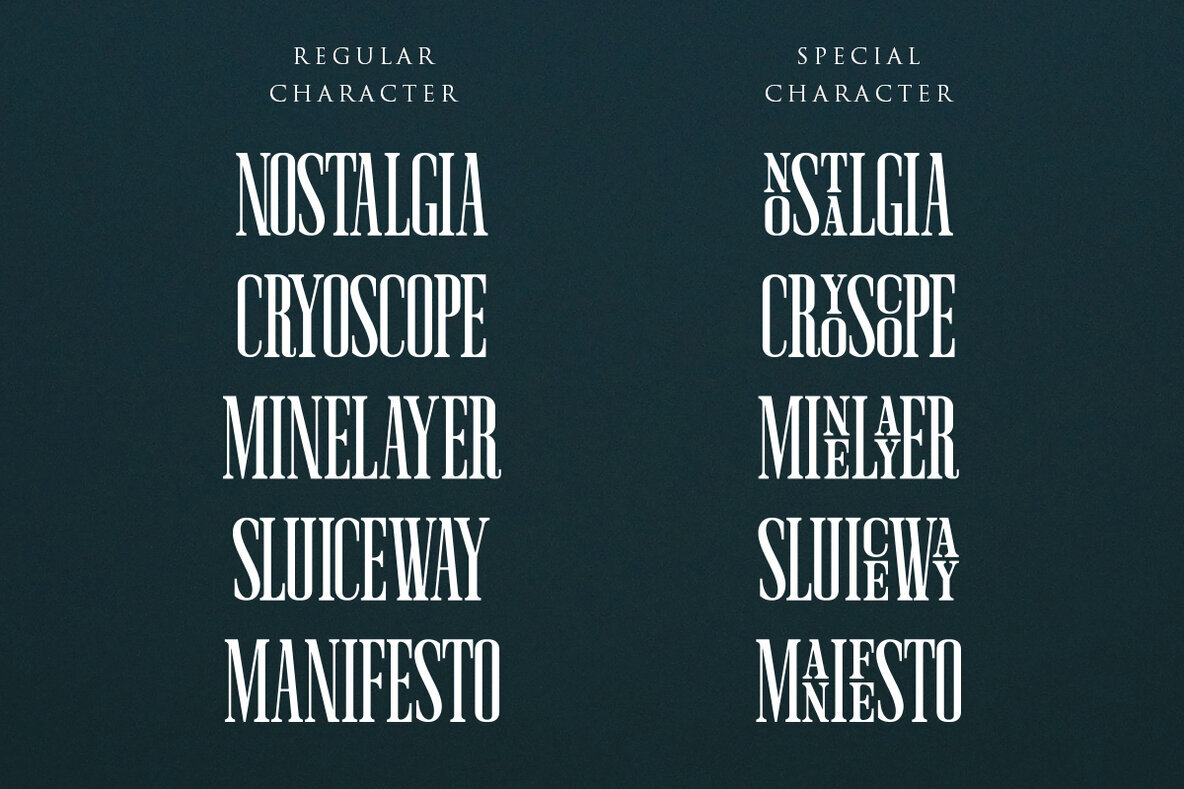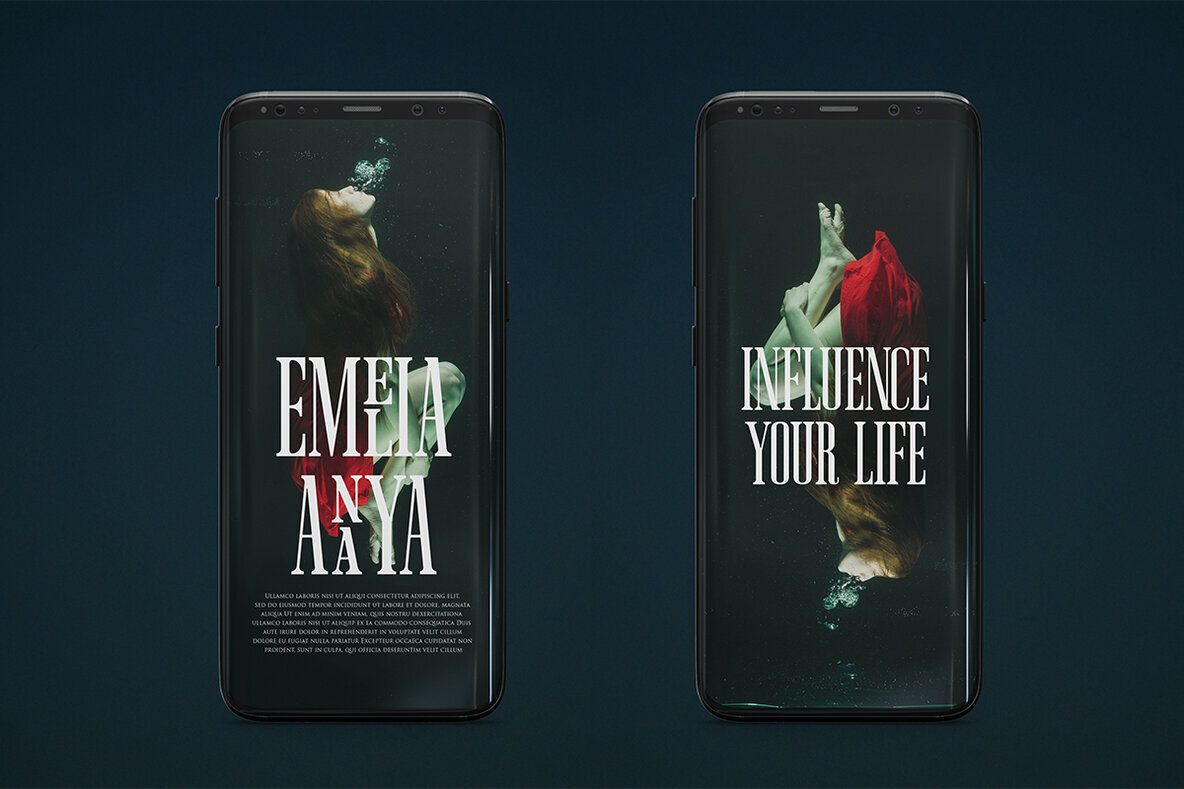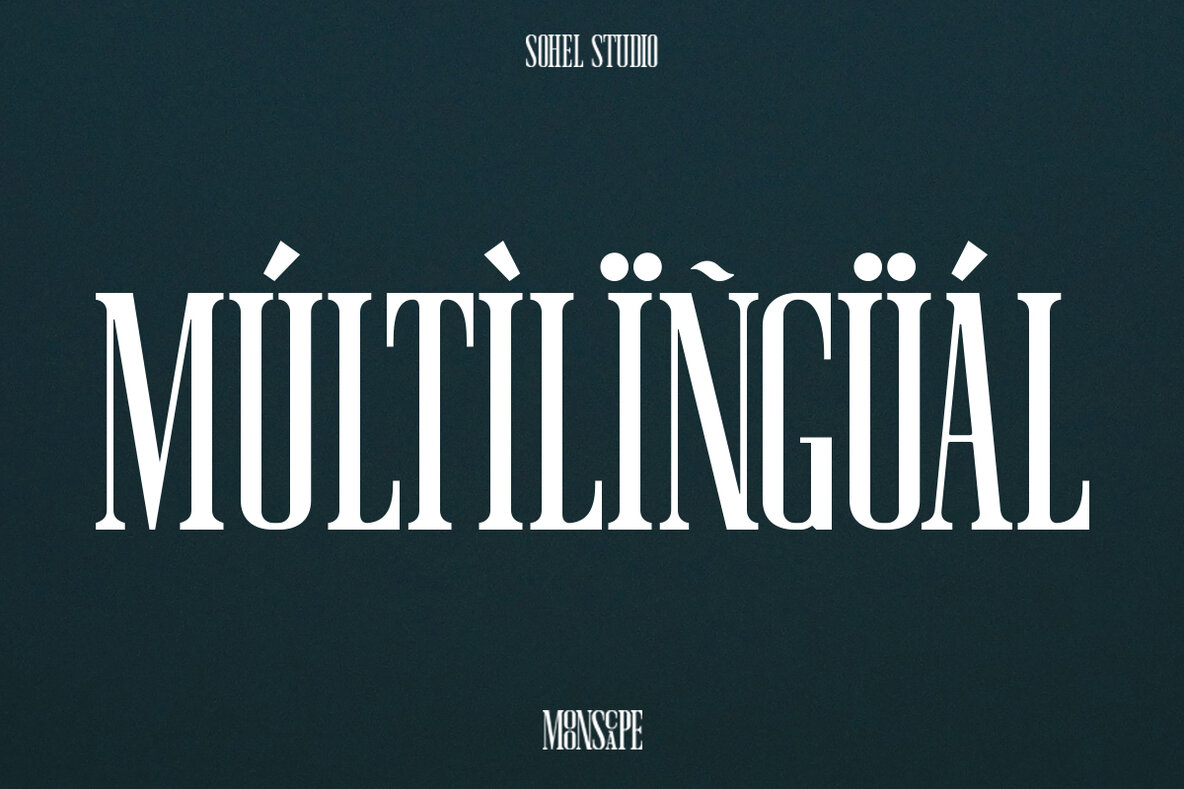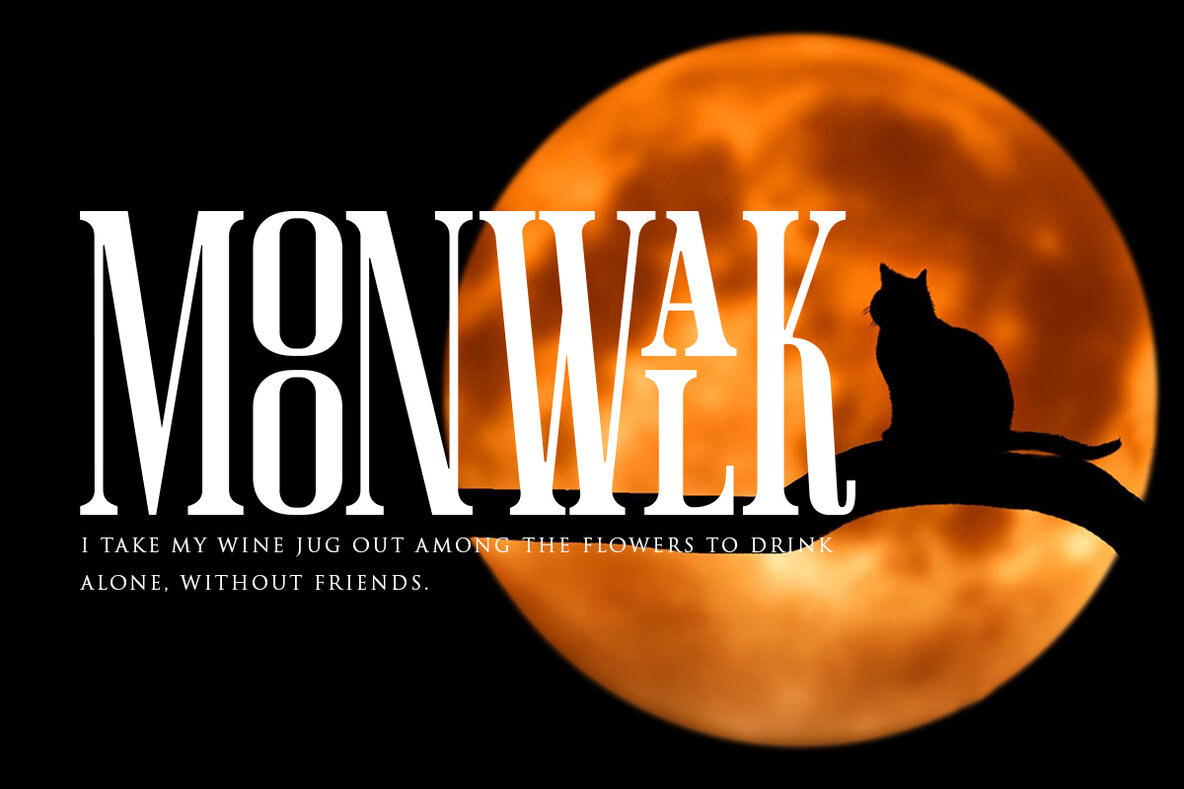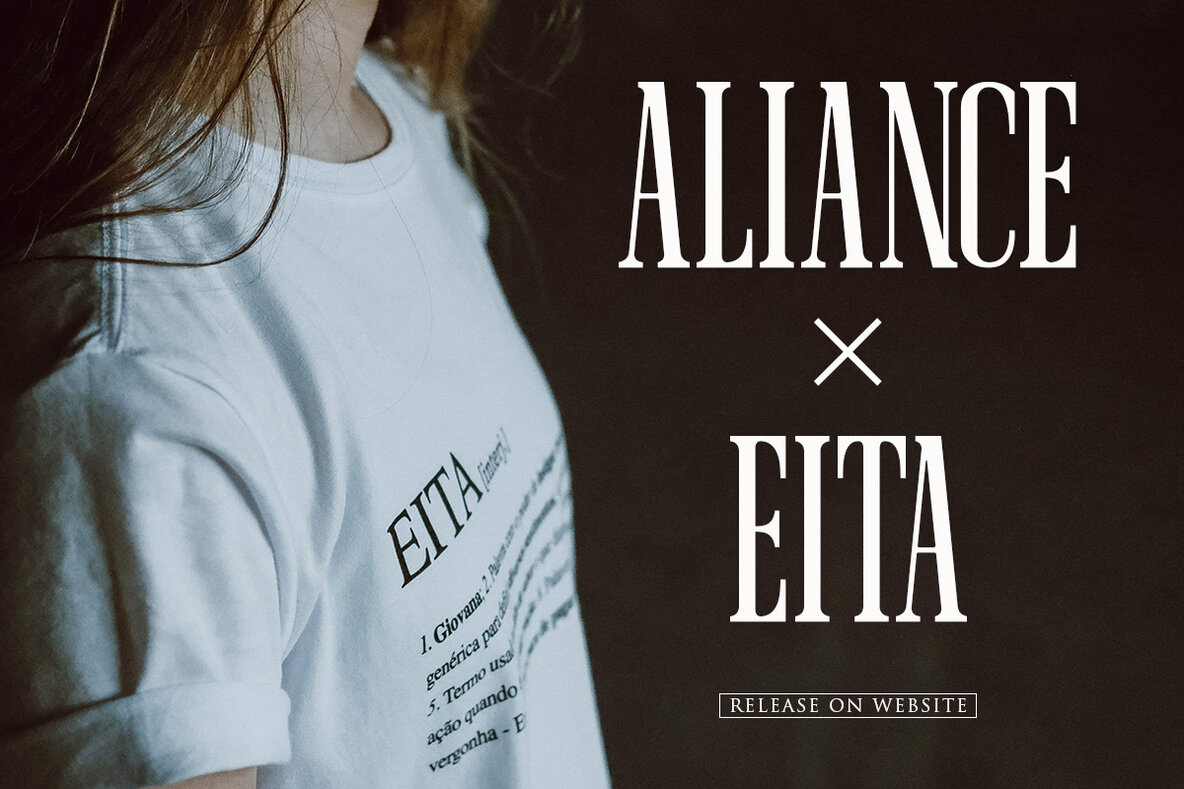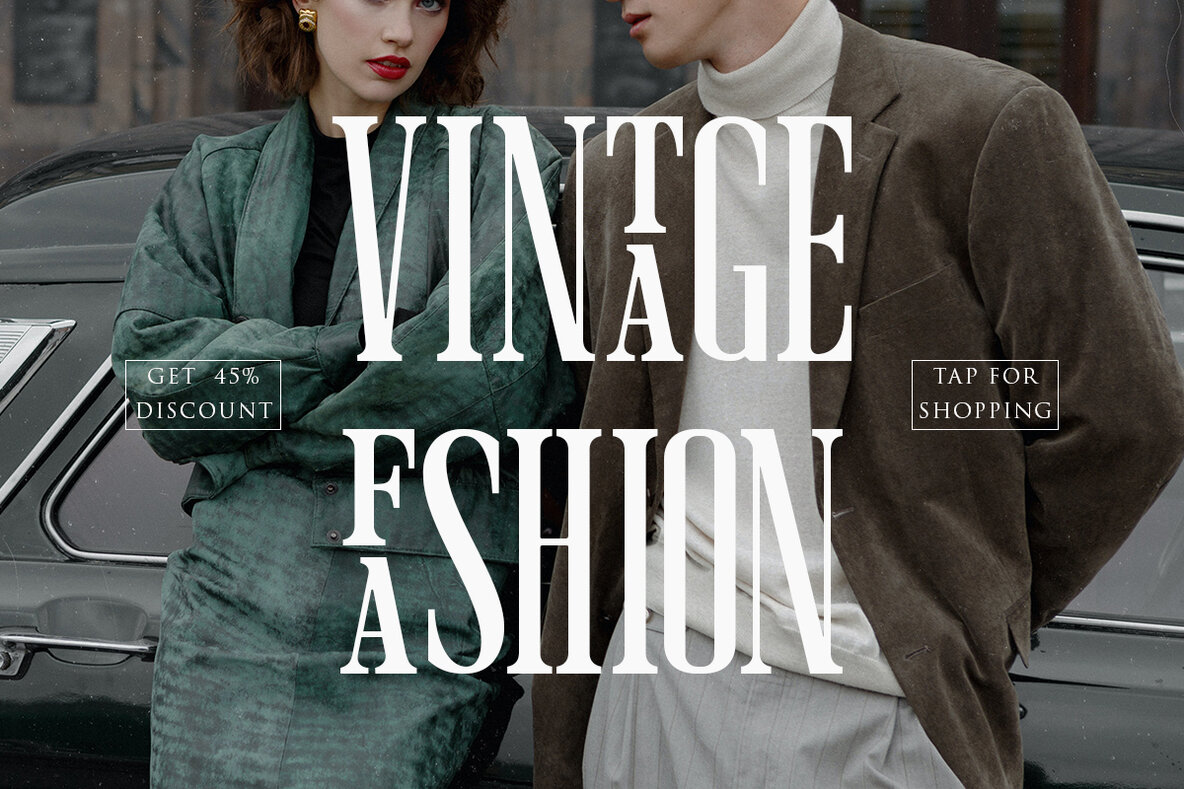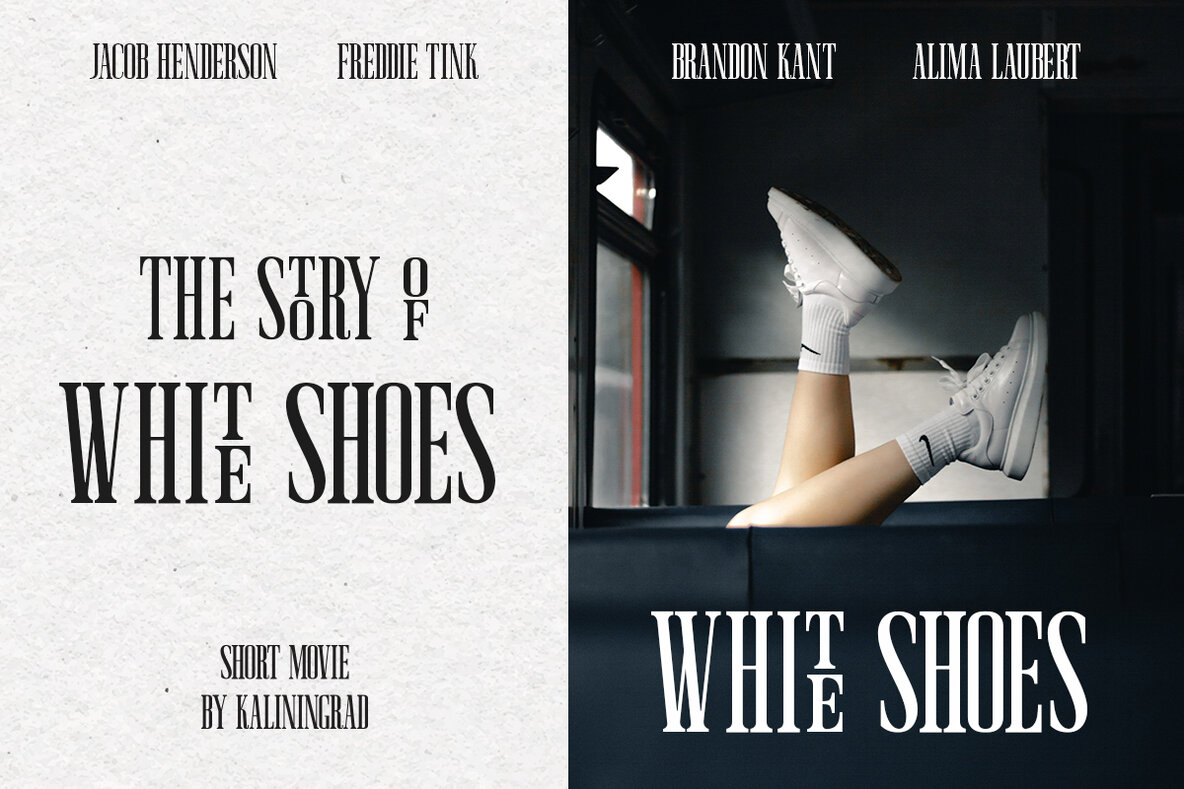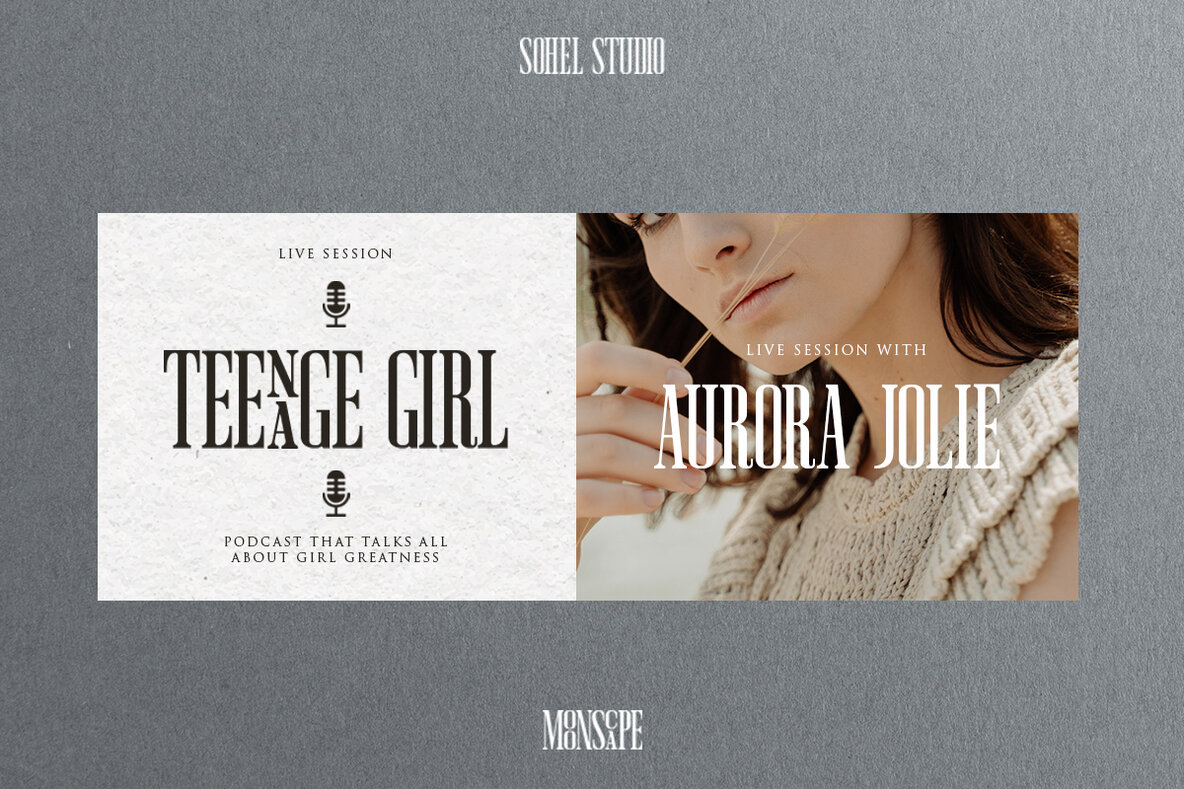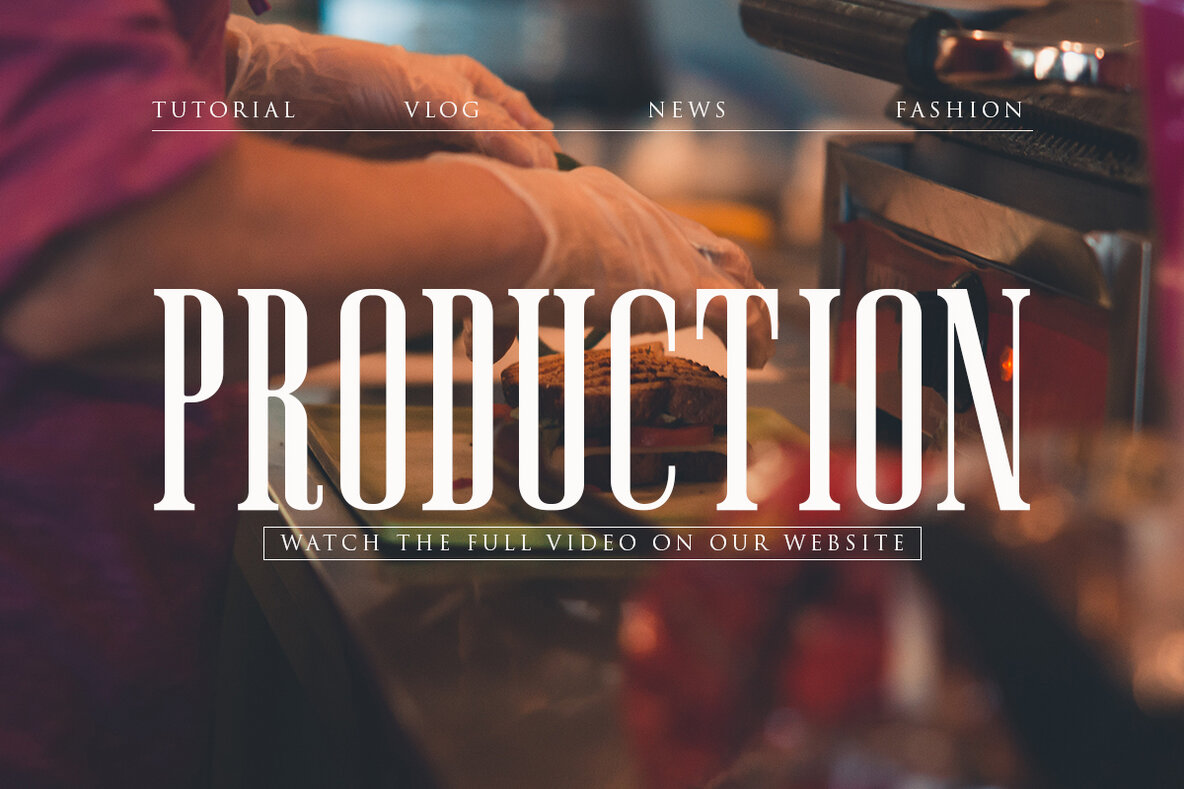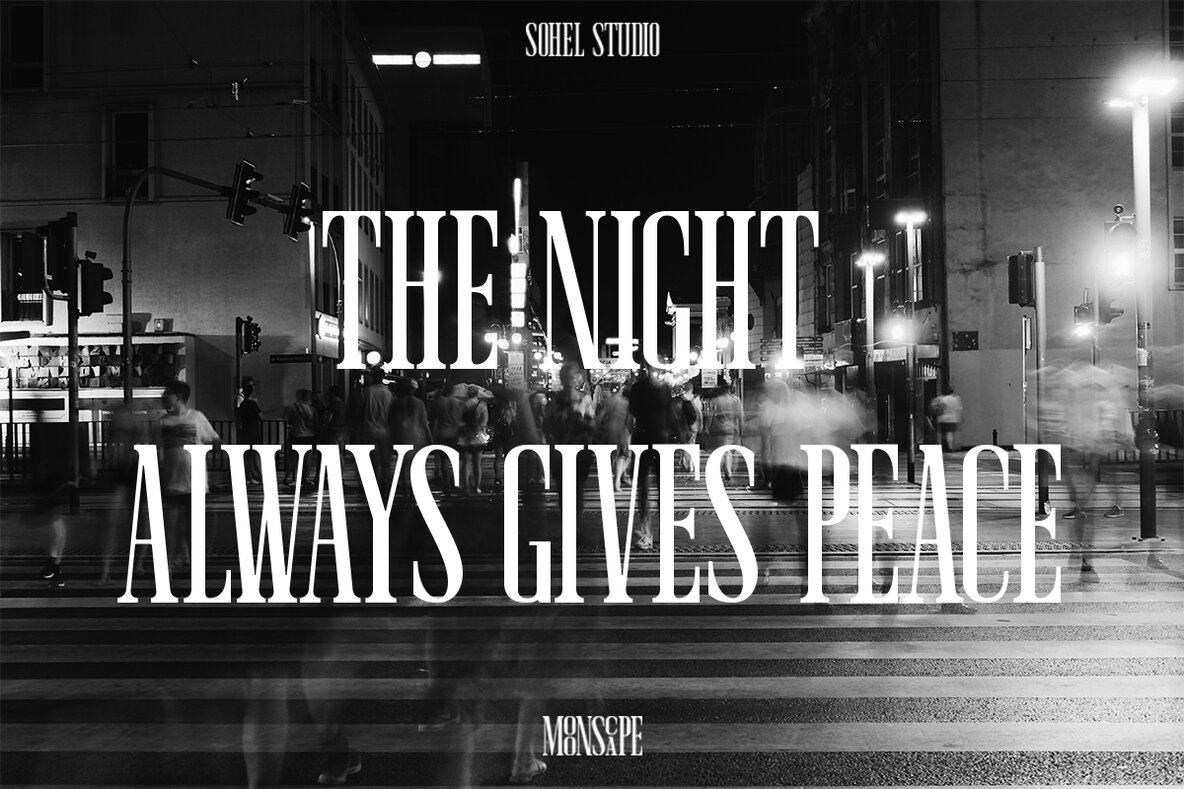
Moonscape Font
“Moonscape” is a thick serif that has 40 Unique Ligatures. Depicted to provide a confident and impressive base headline, while still feeling warm and welcoming. there are 4 different styles that you can apply in your design projects. This typeface is perfect for an book or movie title design, fashion brand, magazine, clothes, lettering, quotes, social media posts and so much more. Moonscape Features: • 4 Weights font (Regular, Thin, Italic, Bold) • Uppercase • Numerals & Punctuation • Accented characters • Format File: TTF,OTF • Multilingual Support • 40 Ligatures • PUA Encoded